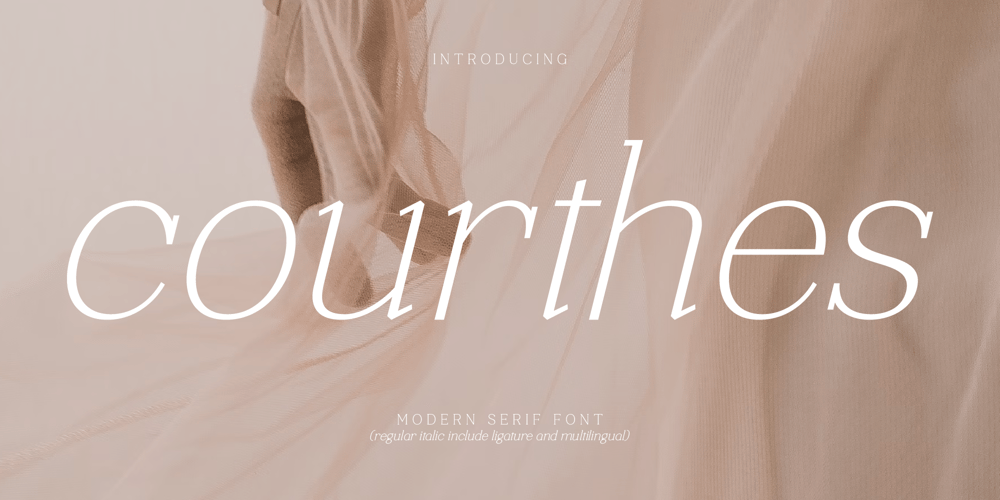
Courthes Font Family was designed by Heru Utama Putra and published by Letterena Studios. Courthes contains 2 styles and family package options. Proudly present Courthes Typeface, created by Storytype.A serif modern and classic typeface that has own unique style & modern look.This typeface is perfect for an elegant & luxury logo, book or movie title design, fashion brand, magazine, clothes, lettering, quotes, and so much more.